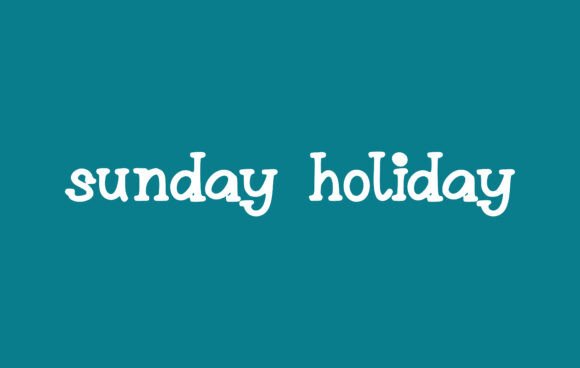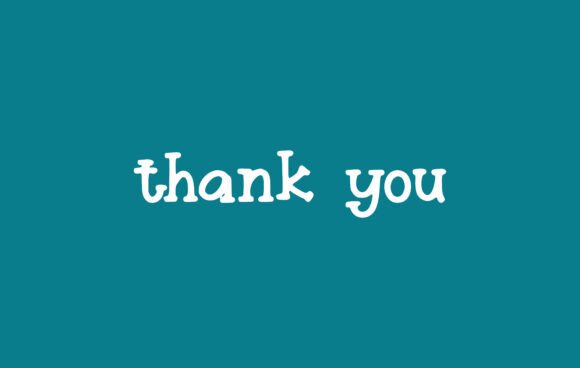
Introduction to Sass Font
As a designer, you’ve probably experienced that magical moment when the perfect font comes along and elevates your entire creative project. For me, it’s like finding the missing piece to a puzzle – everything falls into place, and the design just clicks. That’s what I’m excited to share with you today: the enchanting Sass Font.
This authentic handwritten font exudes a romantic touch that’s sure to capture the hearts of your audience. With its high-quality design and versatility, the Sass Font is a valuable resource for any creative project. Whether you’re working on a magazine headline, social media campaign, or wedding invitation, this font has the potential to take your design to the next level. And the best part? It’s a free download, making it an accessible design resource for designers of all levels.
Sass Font
- High-quality design resource for creative projects
- Transparent background, allowing for seamless integration into various designs
- Unique, handcrafted design that adds a touch of sophistication to any creative project
Honest Review: Sass Font
I recently stumbled upon the Sass Font, and I must say it’s a fantastic addition to my design resource library. The high-quality font is perfect for my creative project, and I appreciate the fact that it’s a free download.
- What works well: ✨ The Sass Font comes with a transparent background, which makes it easy to customize and combine with other design elements. The font is also highly versatile and suitable for various design applications.
- What works well: ✨ The font is well-designed and aesthetically pleasing, making it an excellent choice for creative projects that require a touch of elegance.
Overall, I’m impressed with the Sass Font and would definitely recommend it to fellow designers. While it has some limitations, its high-quality design and versatility make it a valuable resource for any creative project.
Sass Font
Sass Font is a high-quality design resource available for free download. This versatile font is ideal for various creative projects, offering a transparent background that can be easily customized to suit your needs.
Tips for Getting the Most Out of Sass Font
To get the most out of Sass Font, try the following tips:
- Combine Sass Font with other design elements to create a cohesive design.
- Use the transparent background to create a sense of depth and dimension in your design.
Sass Font is ideal for a variety of creative projects, including:
- Print design Alternatives to Sass Font
- Choose a transparent background for your graphic to let the Sass Font take center stage.
- Select a bold color for the font to make it pop against your social media background.
- Combine Sass Font with other design elements like shapes and icons to create a visually appealing graphic.
- Use Sass Font in conjunction with a matching color scheme to create a cohesive look.
- Experiment with different font sizes and styles to create a layered effect.
- Keep the design simple and uncluttered to let the Sass Font be the focal point.
- Choose a bold font size and style to make the title stand out.
- Combine Sass Font with a matching background color to create a cohesive look.
- Experiment with different font colors and effects to create a visually appealing title.
- Use Sass Font in conjunction with a high-quality image to create a visually appealing combination.
- Experiment with different font styles and sizes to create a layered effect.